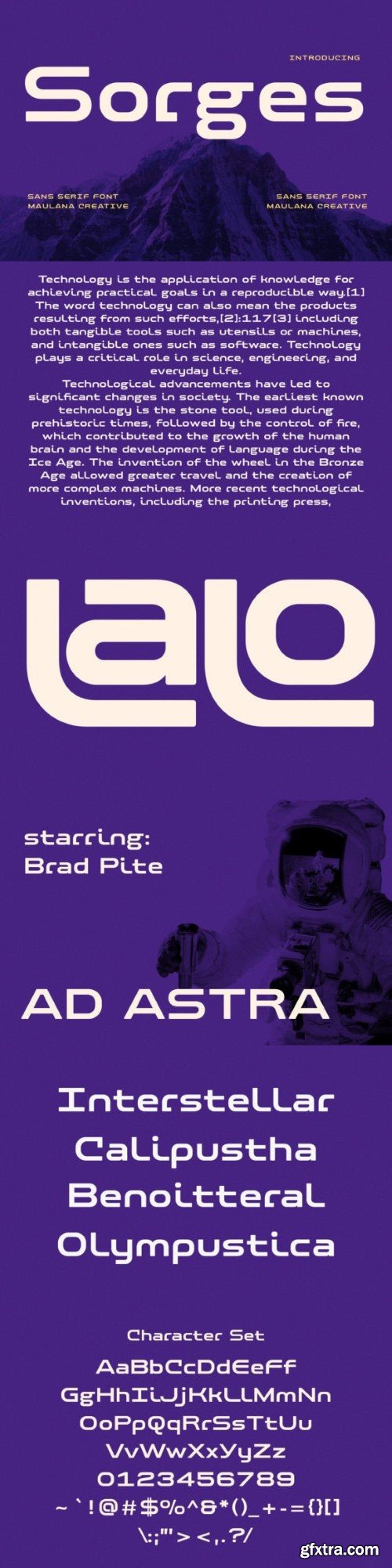
索尔斯格字体
Sorges is a bold and assertive, futuristic sans serif font. No matter the topic, this font will be an incredible asset to your fonts’ library, as it has the potential to elevate any creation.